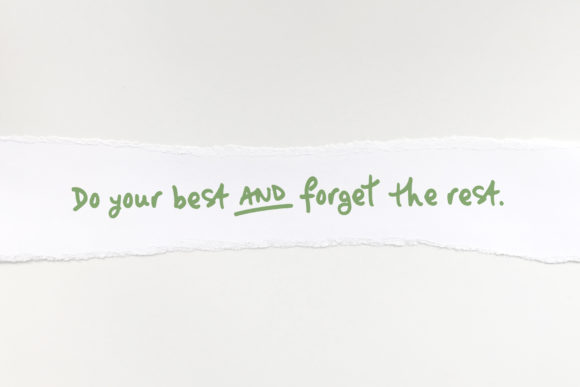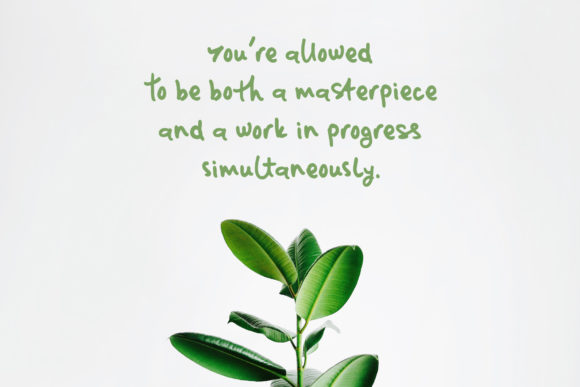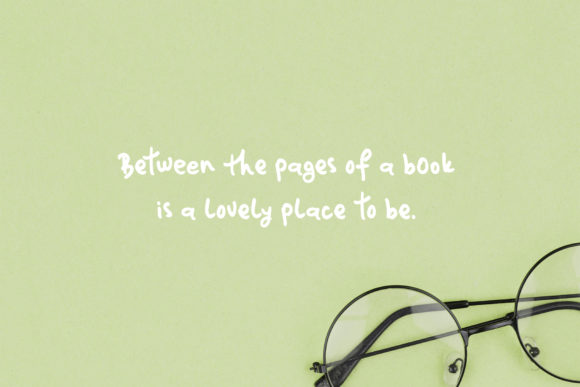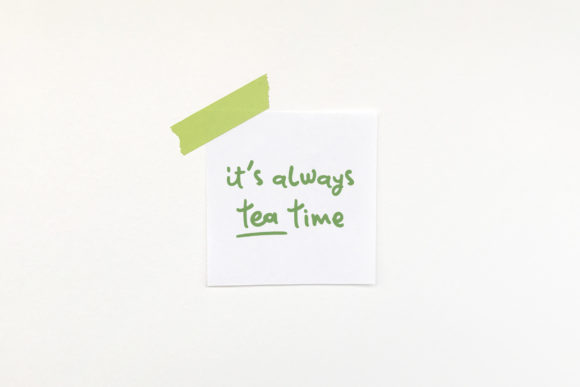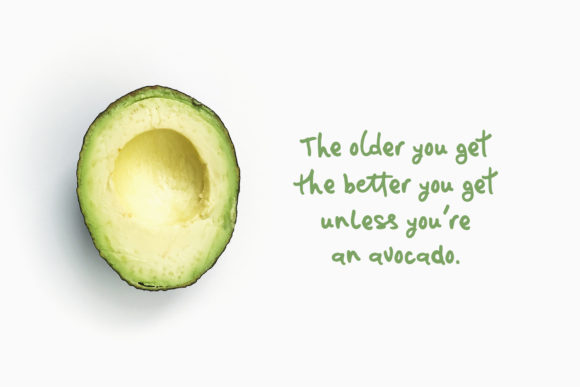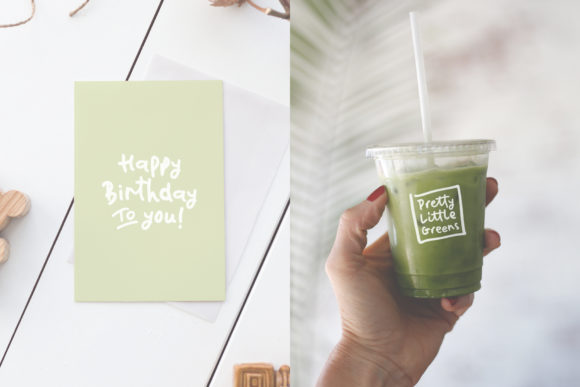
Introduction to EasyNotes Font
EasyNotes is a casual, handwritten marker font with multiple ligatures to help give a genuine handwriten look.
Key Features of EasyNotes Font